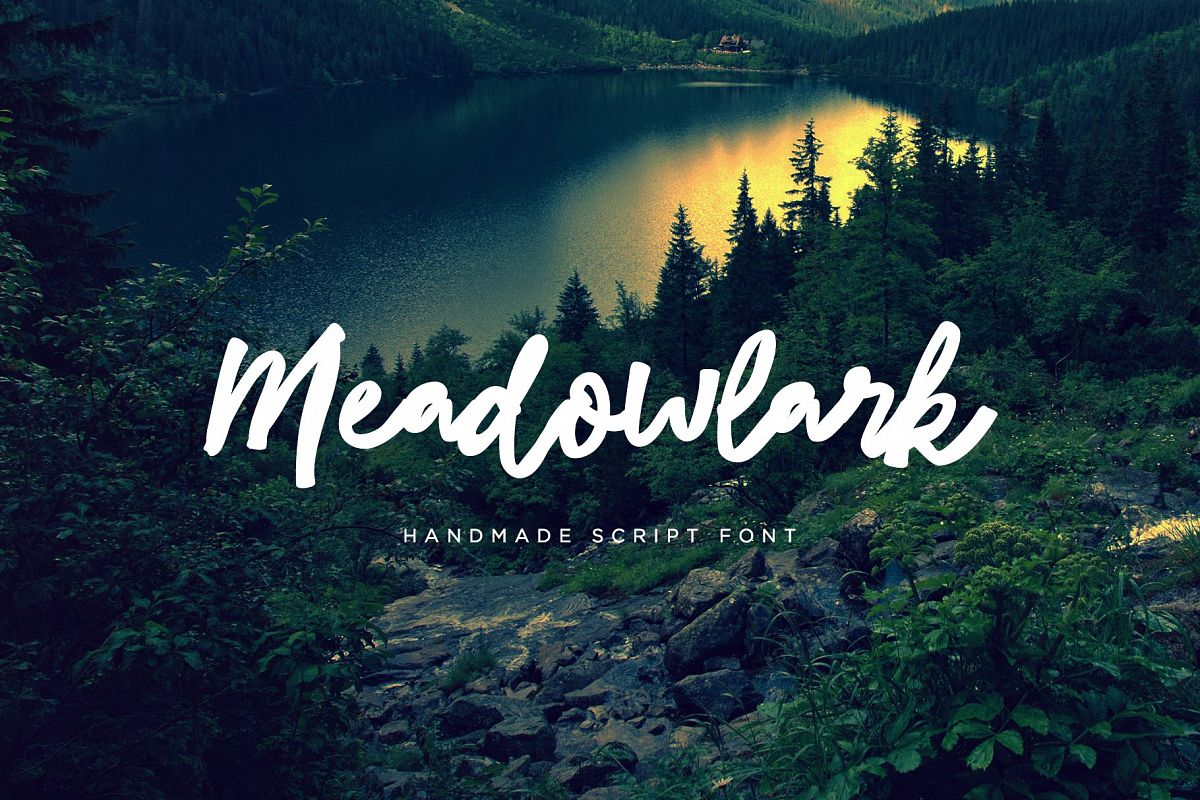
Meadowlark Script Font
by Think Make Design
Meadowlark is a hand made, handwriting script font that will give your designs a casual yet classy, personalized and airy feel.